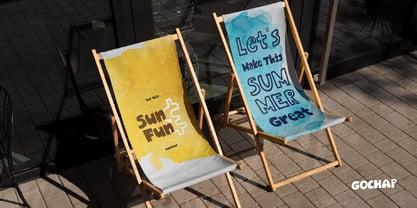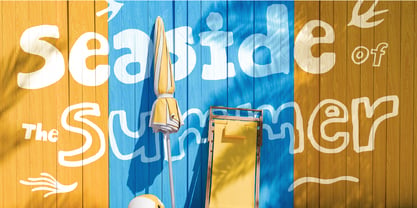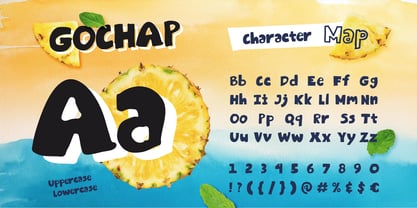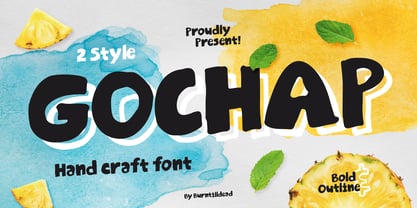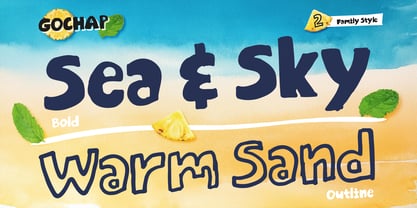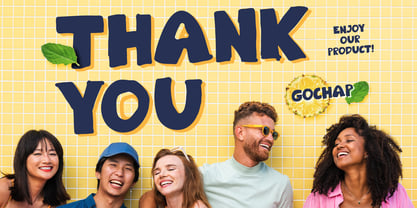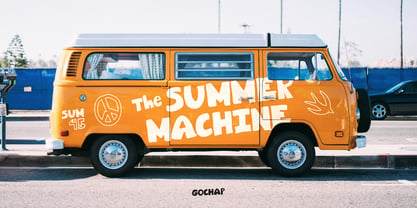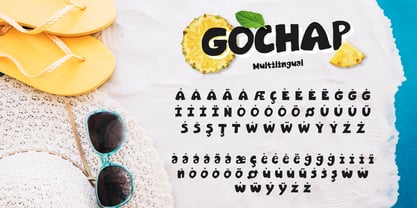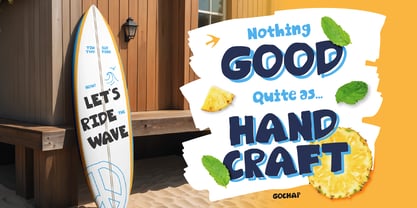
Gochap
by Burntilldead
The Gochap Font Family was designed by Eric Kurniawan and published by Burntilldead. Gochap contains 2 styles and family package options. More about this family
Say hello to Gochap! A handcrafted font with a playful crayon-marker style—that’s exactly what makes it so charming! Gochap brings a bold personality and eye-catching vibe to your designs. It comes in two fun styles: Bold and Outline, making it even more exciting to experiment with.
Now that summer’s here, this font is perfect for adding that sunny, cheerful touch to your projects! Whether you're working on posters, snack packaging, kids' branding, social media posts, or anything that needs a fun and energetic twist.
• Uppercase & Lowercase
• Number
• Punctuation
• Multilingual